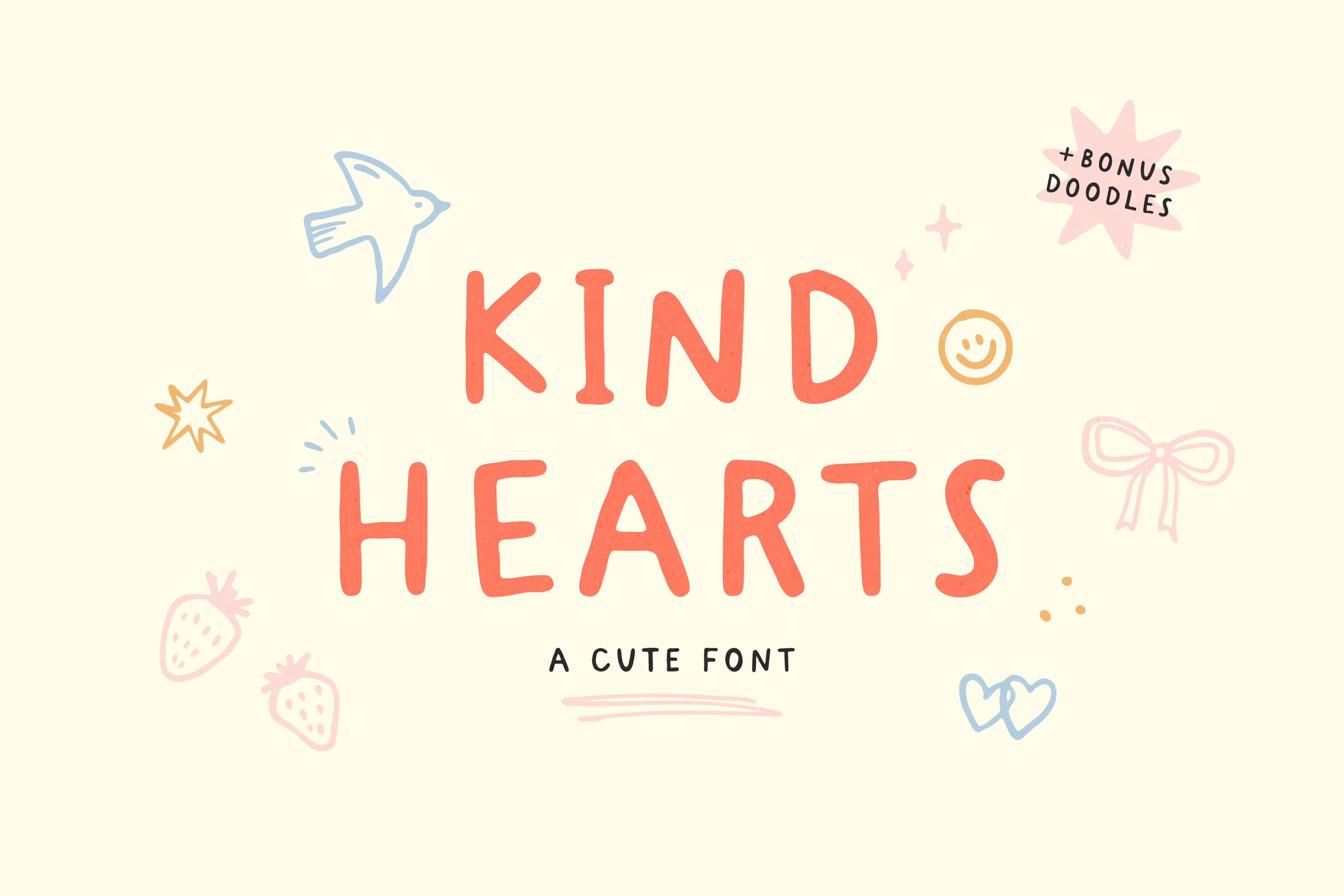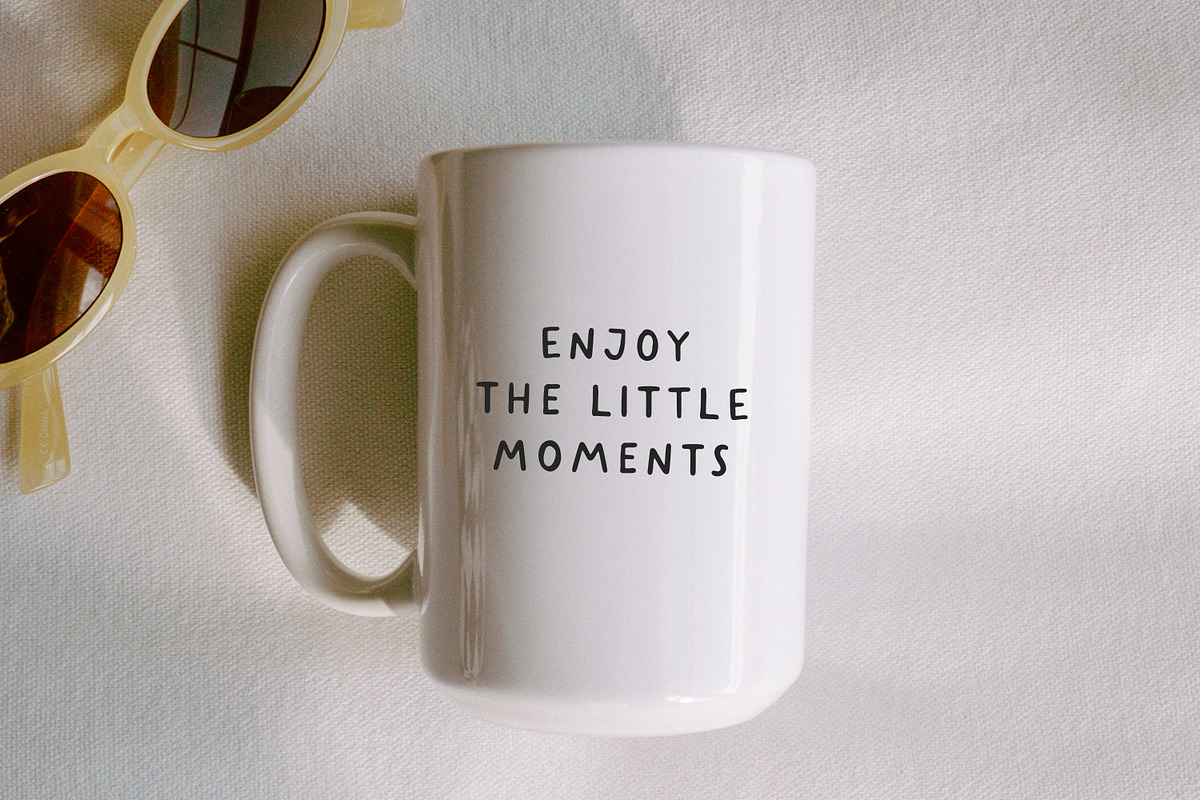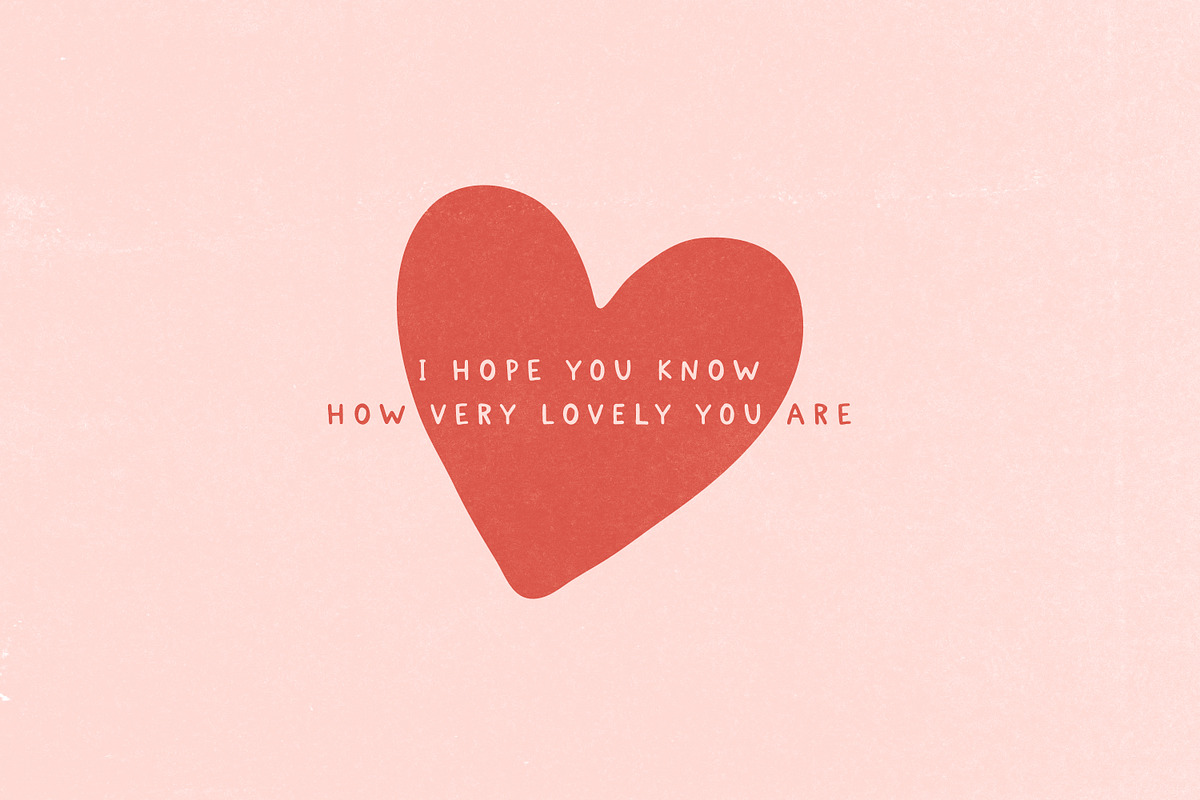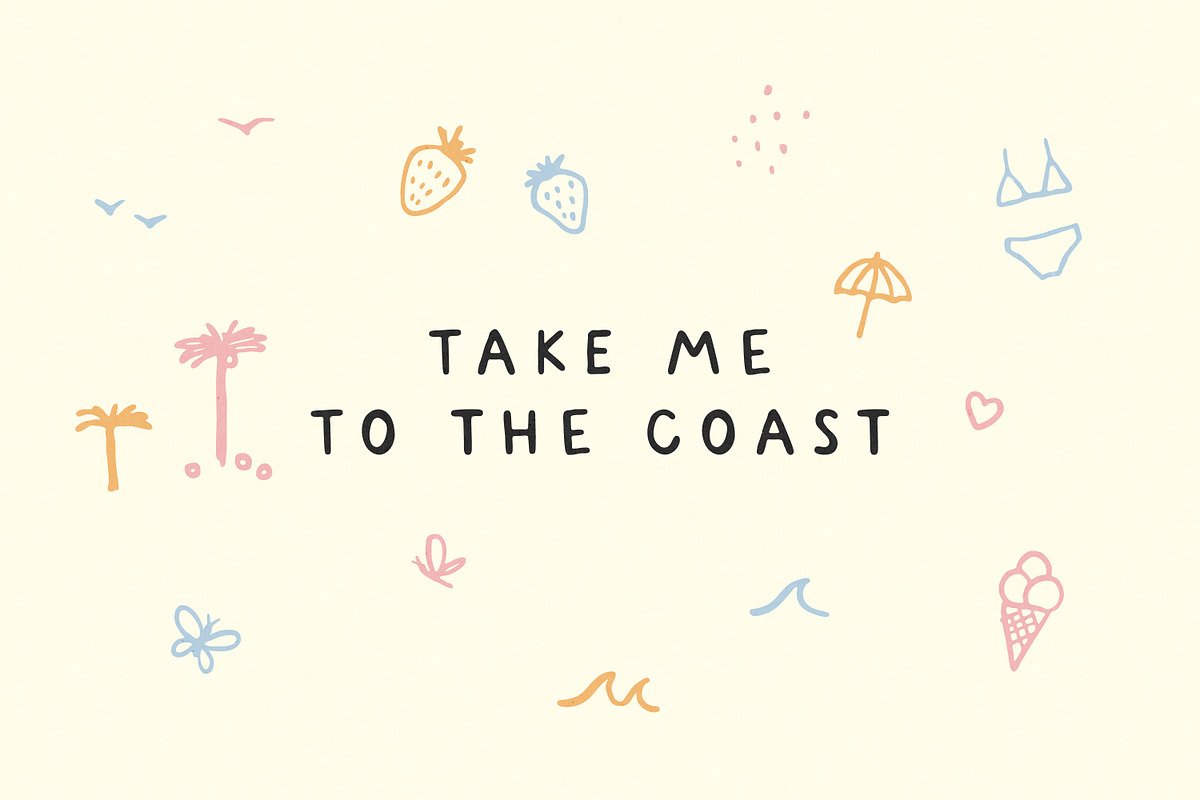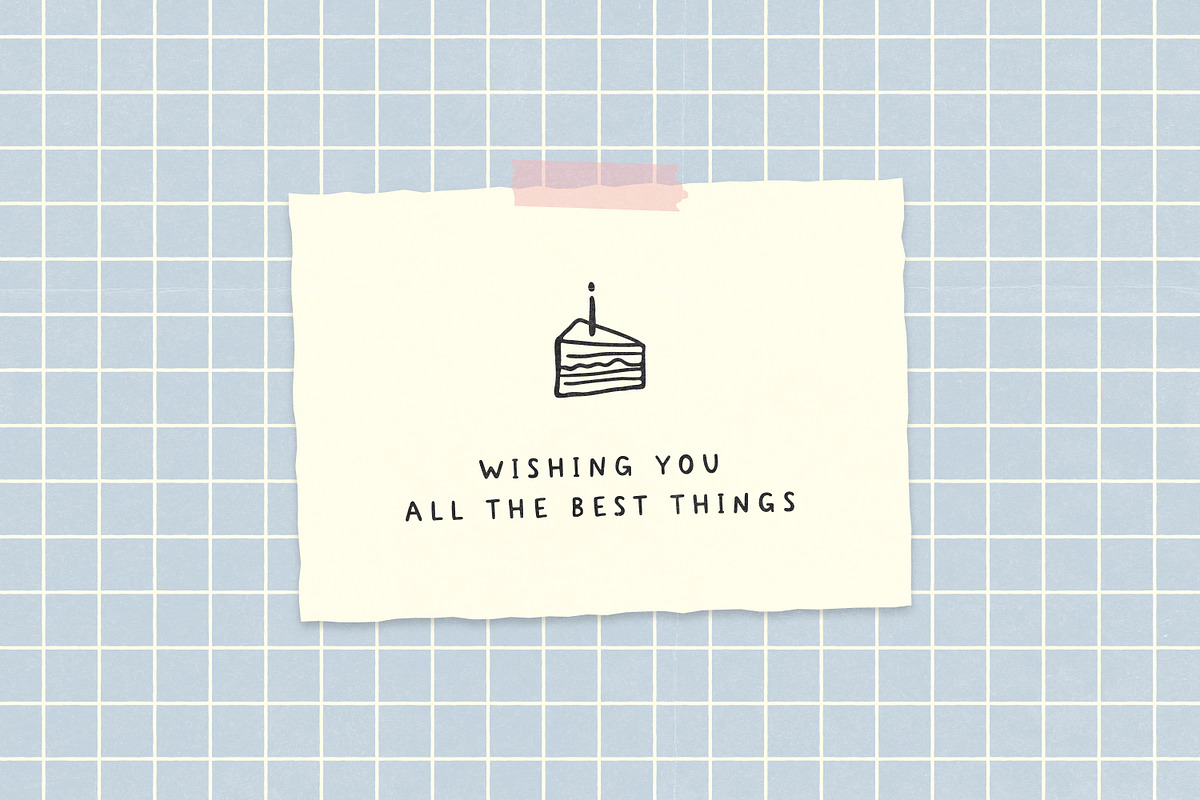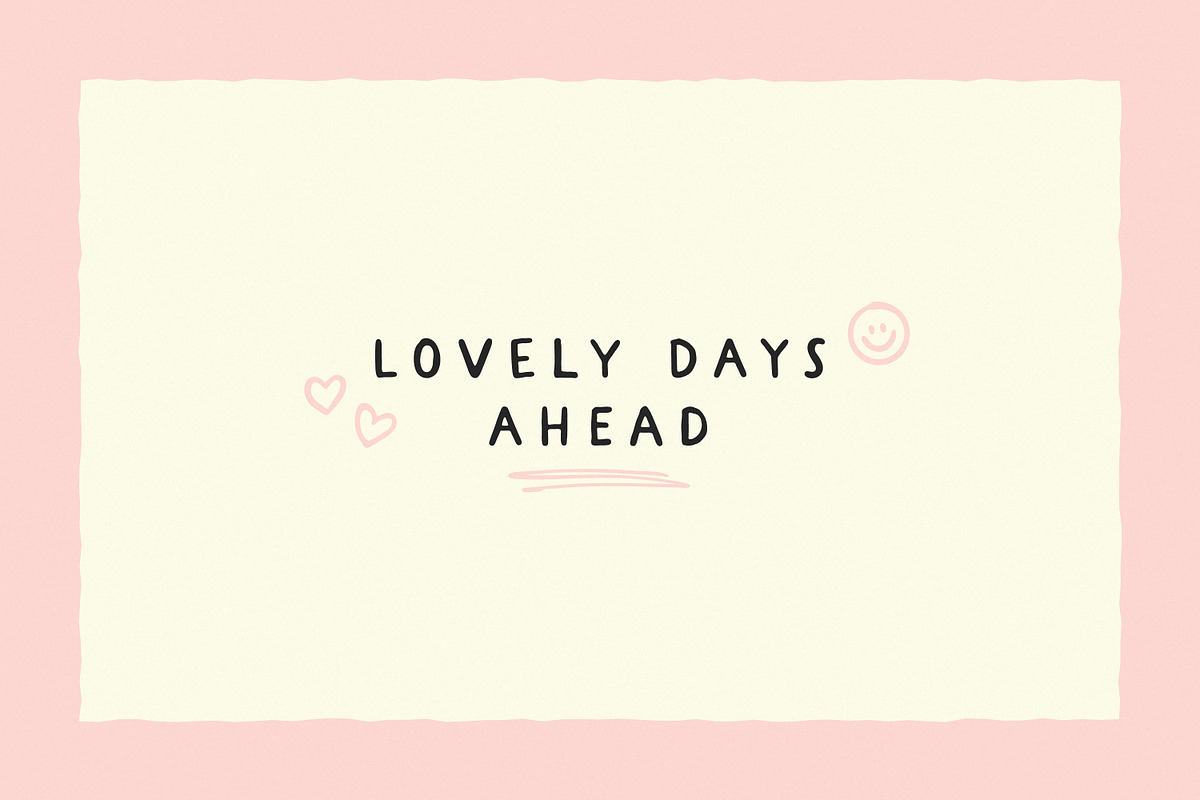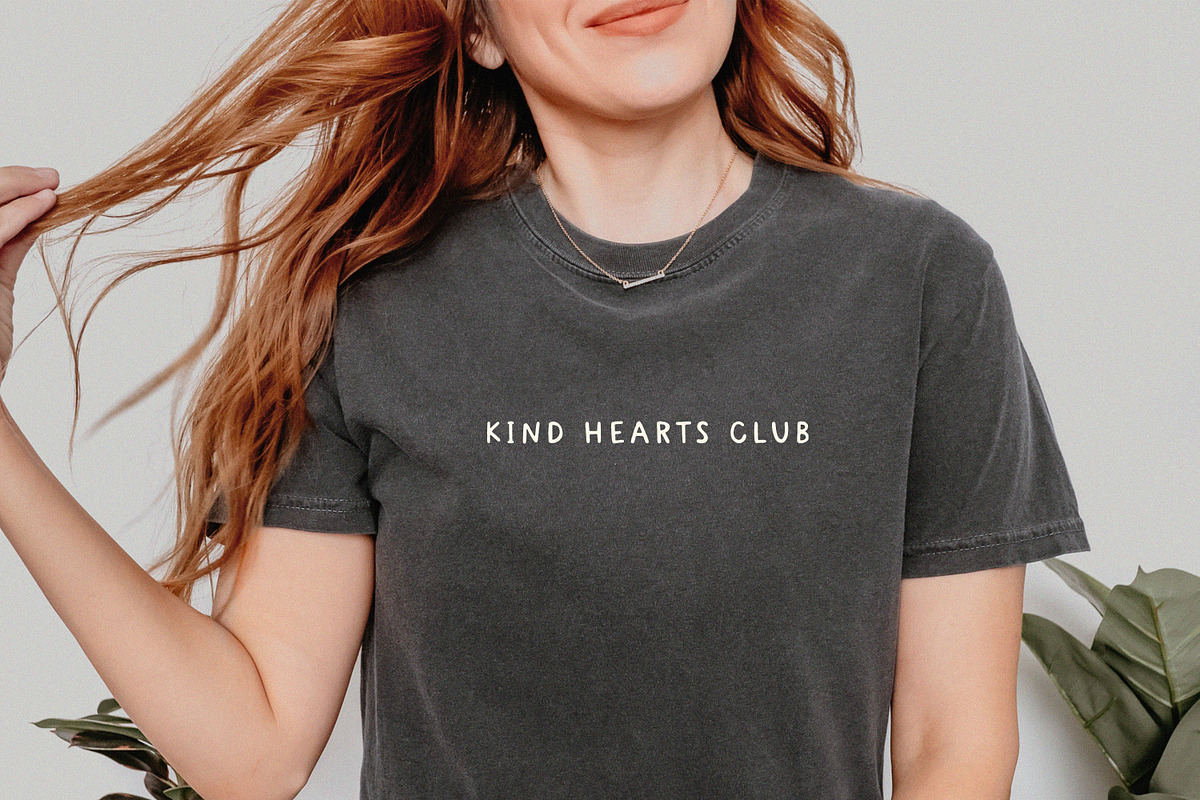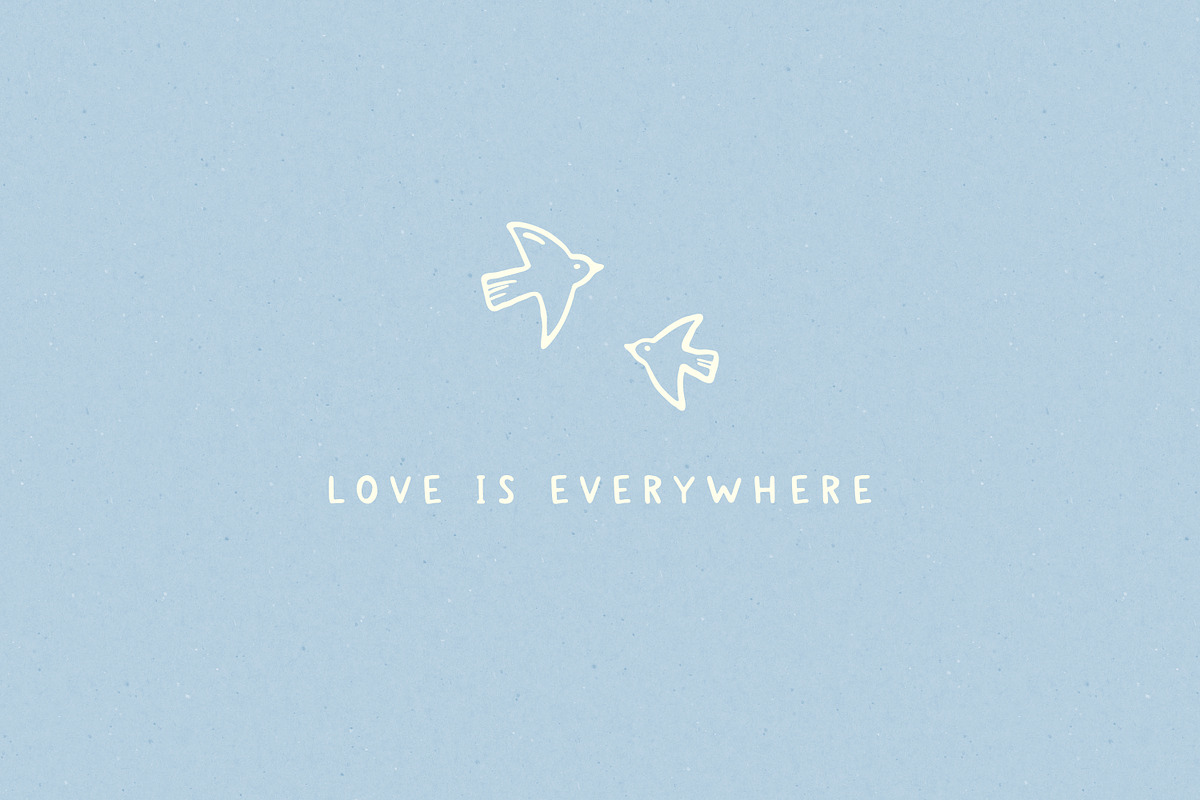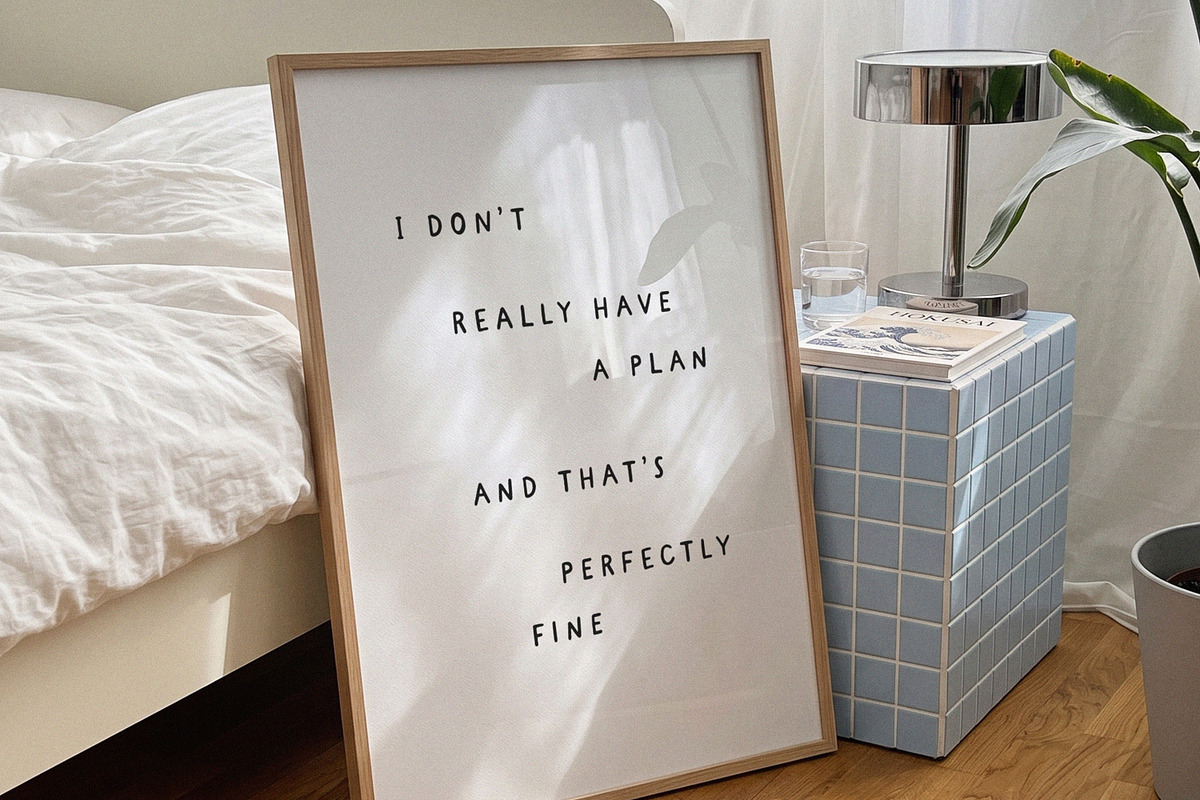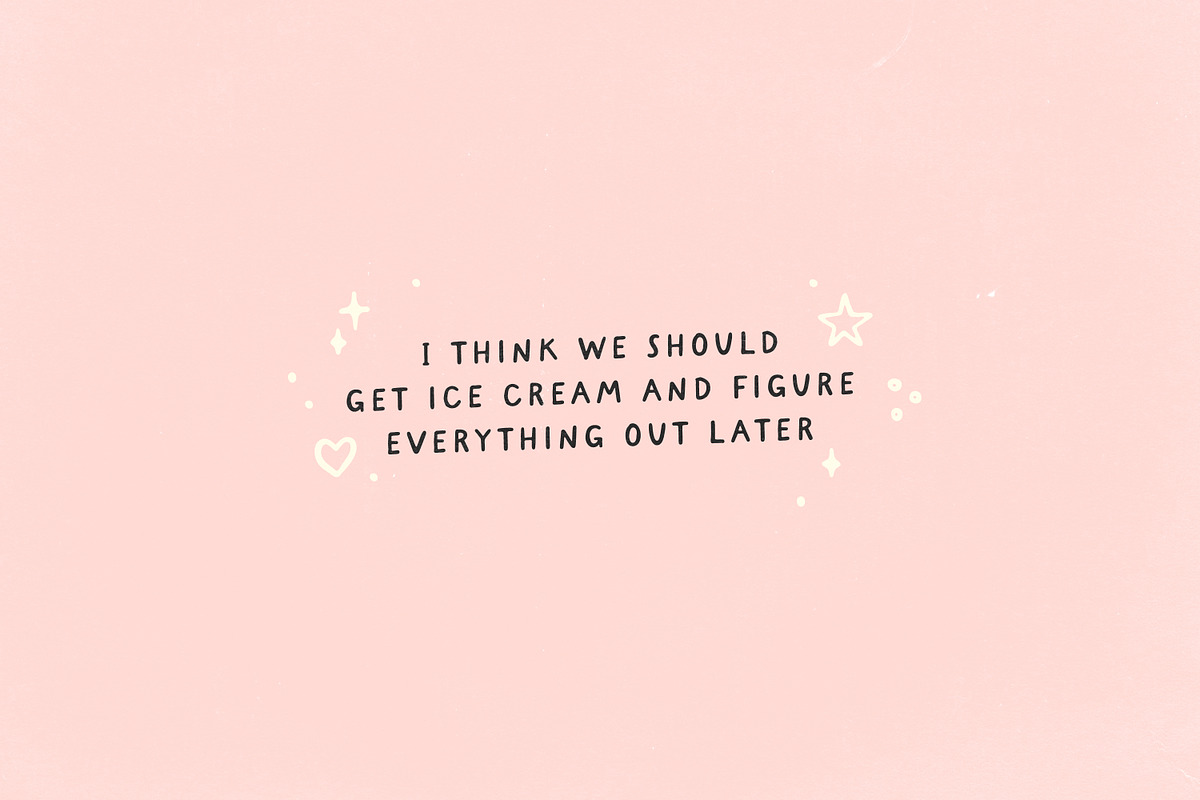
Kind Hearts - Cute Font & Doodles
Kind Hearts is a cute and playful handwritten font with a lovely set of doodles, including little hearts, stars, and other charming decorative elements.
Perfect for logos, branding, packaging, apparel, greeting cards, posters, invitations, quotes, social media designs, stickers, and so much more.